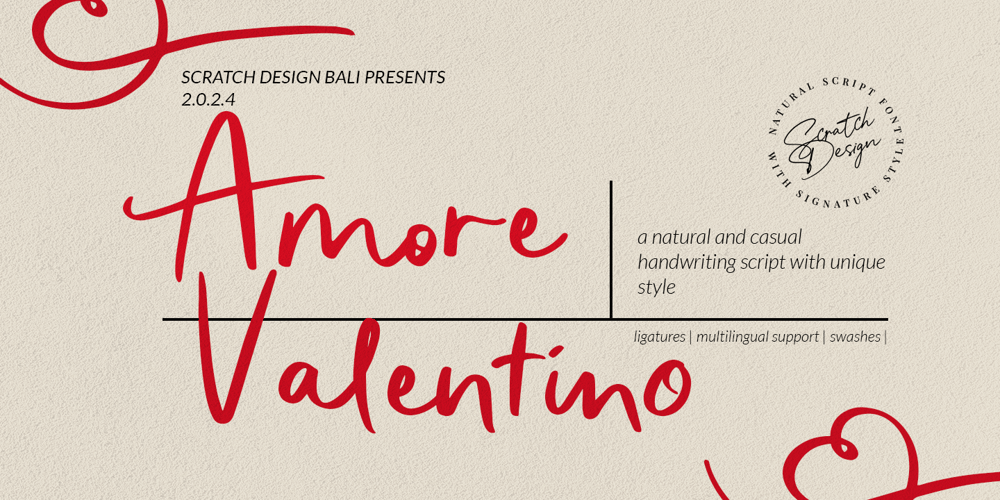
Amore Valentino Font Family was designed by Gitayogi Irhandi and published by Scratch Design. Amore Valentino contains 1 styles and family package options. Amore Valentino is a natural and casual handwriting script font with a unique style. It features elegant ligatures, multilingual support, and stylish swashes, perfect for adding a unique touch to your designs. Ideal for wedding invitations, branding, and social media graphics, Amore Valentino brings a touch of sophistication and charm to any project.Includes: Uppercase and Lowercase Numbers & punctuation Ligatures Beautiful swashes Multilingual support We highly recommend using a program that supports OpenType features and Glyphs panels like many of Adobe apps, so you can see and access all Glyph variations.We hope you enjoy our font!